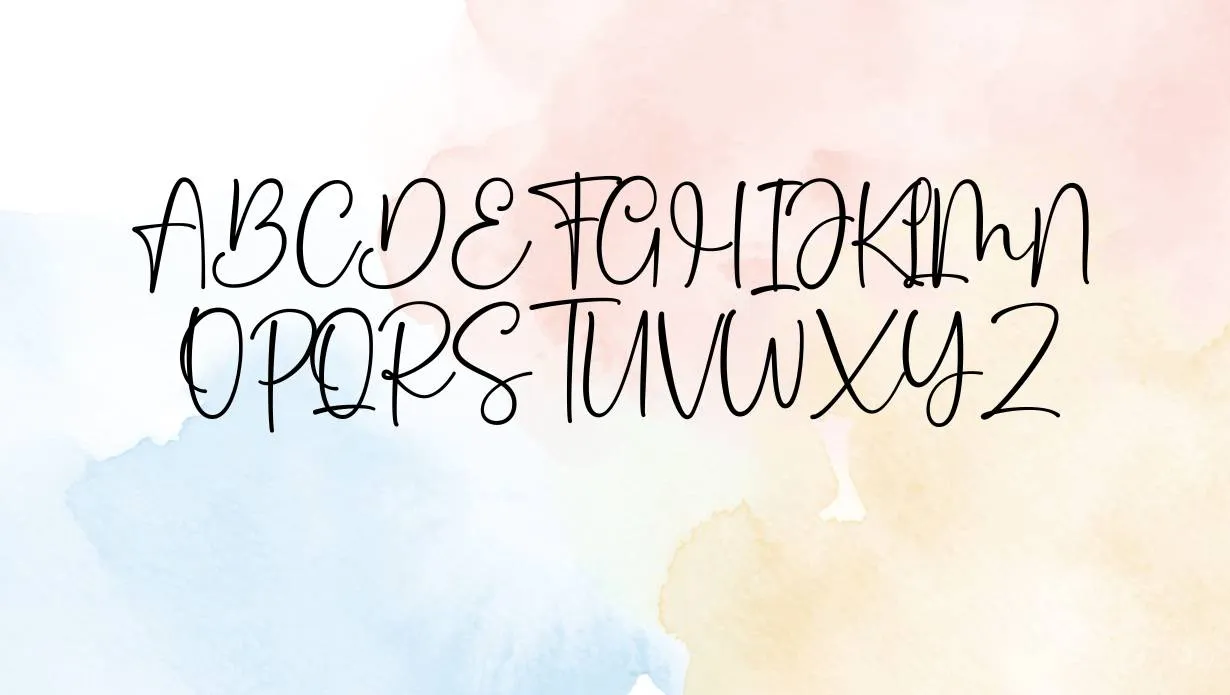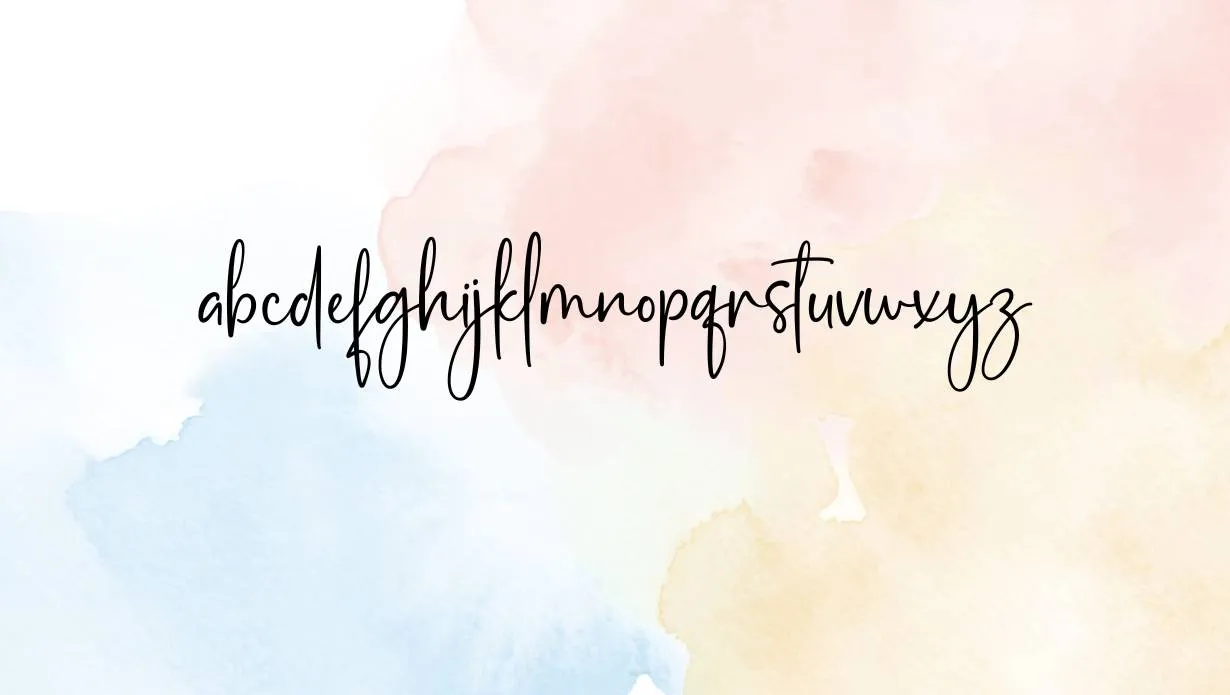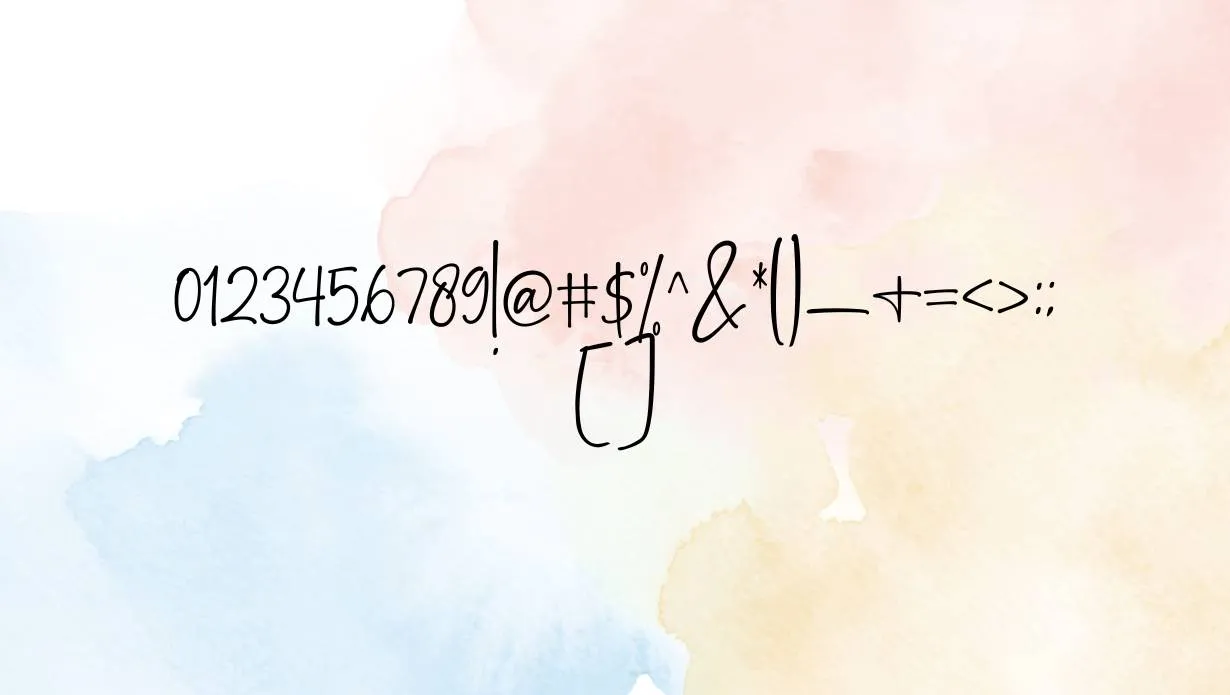
Yummy Ice Cream Font is a beautiful and bubbly script texture that was designed by a famous designer called Brithos Type. It is a funky font style perfect for every post that requires an amazing look. This font can be paired with many similar fonts to make good designs. These fonts are Toronto Modern Signature Font, geulis font, sheyst Font, and many more fonts.
Yummy Ice Cream Font Family Appearance
| Name | Yummy Ice Cream Font |
| Designer | Brithos Type |
| Style | Script |
Family of Yummy Ice Cream Font
- Yummy Ice Cream Regular
What type of font is Yummy Ice Cream Font?
Yummy Ice Cream is a beautiful and bubbly script font designed by a famous font designer team called Brithos Type. It is a funky font style perfect for every post that requires an amazing look and feel and that attracts users of all ages.